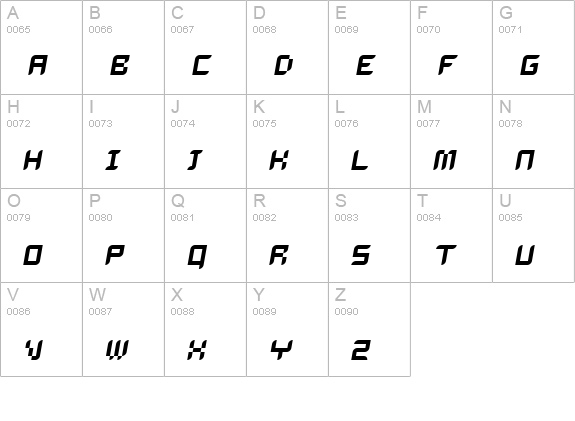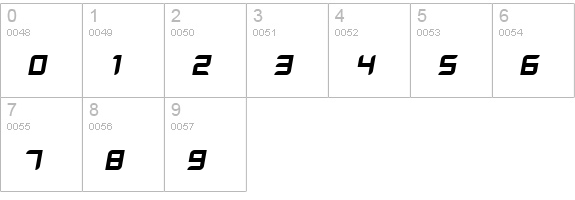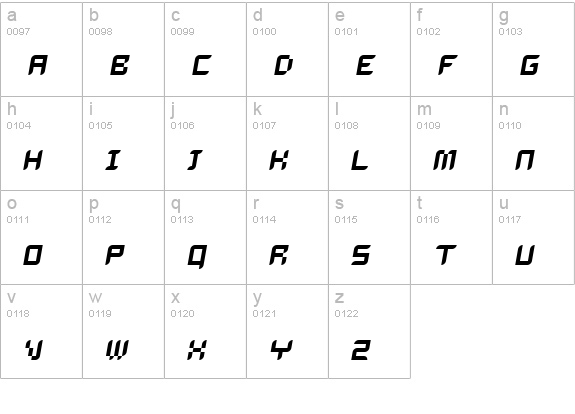
Dalila Oblique Font Details
Dalila Oblique is a distinctive, italic variant in the Dalila typeface family \xE2\x80\x94 well suited to design and typography projects.
Dalila Oblique font is a stunning typeface that effortlessly combines elegance and versatility. It is the perfect choice for those seeking a contemporary and stylish look in their designs. With its unique, slanted letterforms, Dalila Oblique adds a touch of sophistication to any project. This font is not only visually appealing but also highly functional. Its clean lines and well-defined curves ensure legibility, making it suitable for a wide range of applications. Whether you're designing a logo, website, or print materials, Dalila Oblique will make your text stand out and leave a lasting impression. One of the best things about Dalila Oblique font is that it is free. Yes, you heard it right! This font is freely available to download at FontsMarket.com. Now you can enhance your designs without having to worry about any additional costs. It's a fantastic opportunity to access a high-quality font without breaking the bank. Dalila Oblique font is designed with precision and attention to detail, making it a must-have for designers, creatives, and anyone looking to add a touch of elegance to their projects. Its versatility allows it to be used in various design contexts, from branding and advertising to packaging and editorial layouts. The possibilities are endless with this exceptional font. Download Dalila Oblique font today from FontsMarket.com and experience the power of this extraordinary typeface. Elevate your designs to a whole new level and captivate your audience with the timeless beauty of Dalila Oblique.